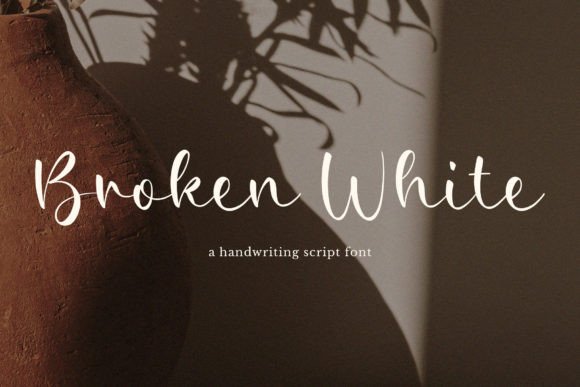
In a realm of monotonous monotony, where fonts blend together like raindrops in a storm, Broken White emerges as a beacon of originality, a breath of fresh air that will transform your creative endeavors into masterpieces. With its graceful curves and enchanting strokes, this script font is not just a collection of characters; it's an artistic expression that will elevate your designs to unprecedented heights.
Picture this: you're a fashion designer, pouring your heart and soul into your latest clothing line. You need a font that captures the essence of your creations, a font that whispers luxury, elegance, and timeless style. Broken White answers your call, its delicate serifs and playful ligatures adding a touch of sophistication that will make your garments irresistible.
Or perhaps you're a branding expert, tasked with creating a logo that will leave an indelible mark on the minds of your clients. Broken White steps forward, its versatility allowing you to mold it into any shape or form, expressing your brand's unique personality with flair and finesse. The possibilities are endless, like the stars in the night sky.
Social media enthusiasts, rejoice! Broken White is your secret weapon for captivating posts and stories that will make your audience stop scrolling and take notice. Its handwritten charm will add a personal touch to your words, making them resonate with your followers on a deeper level. Trust us, they'll be double-tapping and sharing your content like never before.
Weddings, the most magical of occasions, deserve a font that exudes romance and elegance. Broken White is the perfect choice for invitations, programs, and table settings, adding a touch of ethereal beauty to your special day. Your guests will be enchanted by its delicate strokes, a testament to the love and joy that fills the air.
And for those who simply seek to express themselves through words, Broken White is your faithful companion. Use it to create stunning posters, greeting cards, or even heartfelt letters. Its graceful lines will add emotion and depth to your messages, leaving a lasting impression on the hearts of those who read them.